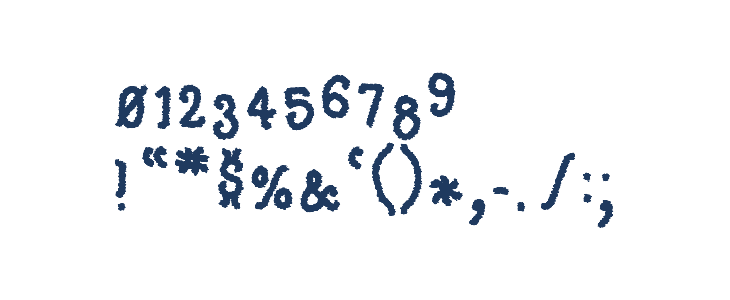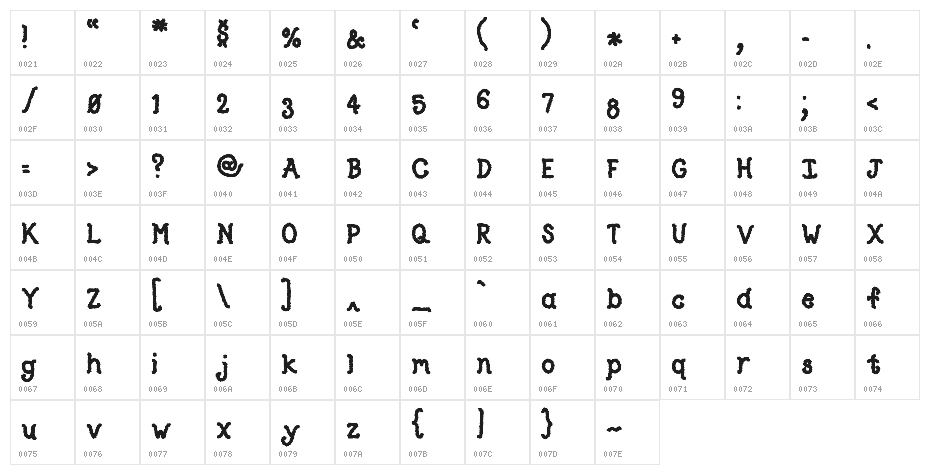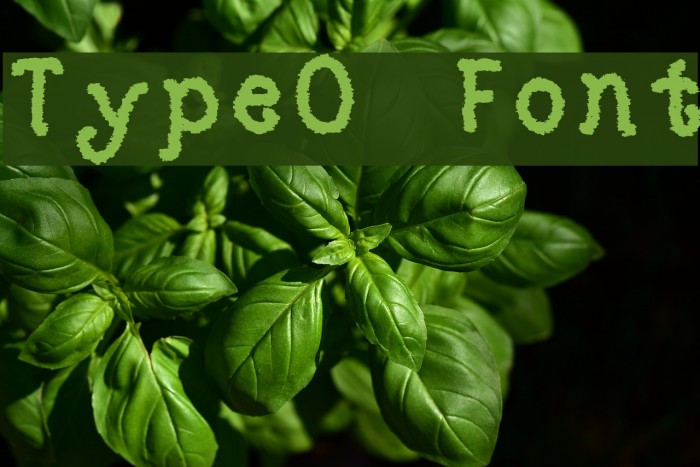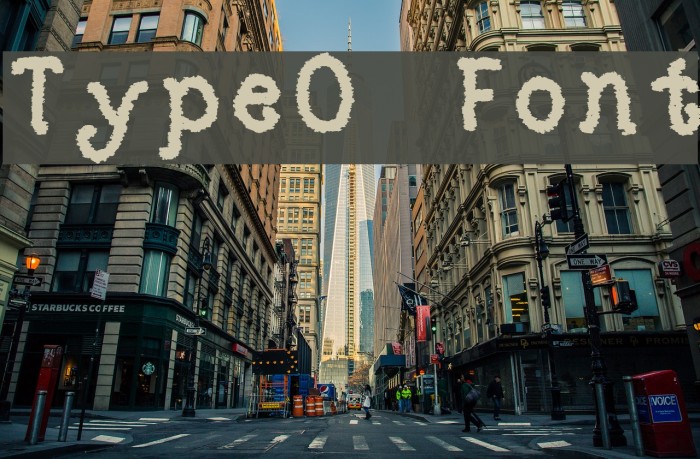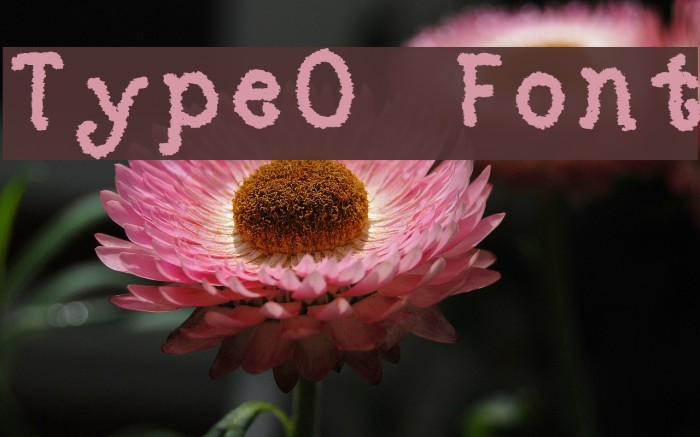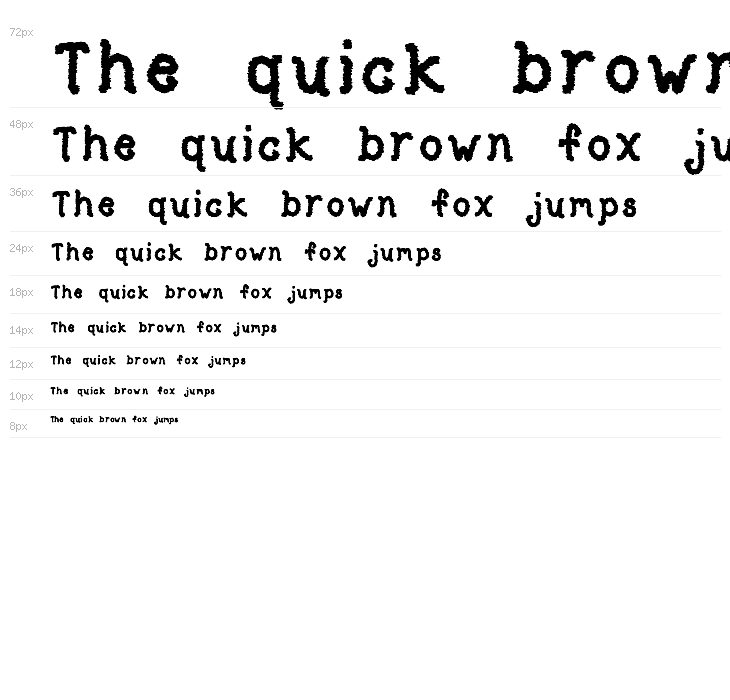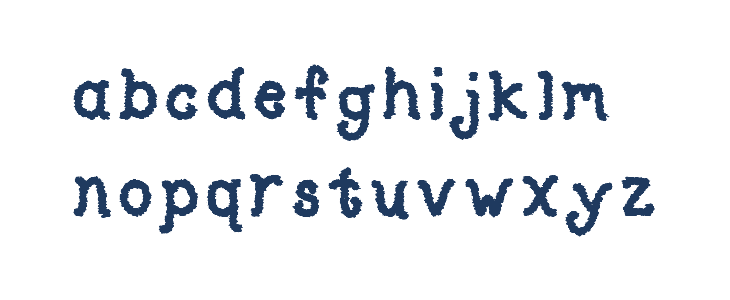
TypeO Font
TypeO Description
This font features a playful and slightly irregular style, characterized by its hand-drawn appearance. The letters have a rough, textured edge, giving them a unique, organic feel. The uppercase and lowercase letters maintain a consistent style, with rounded forms and a whimsical touch. Numbers and special characters follow the same design, ensuring a cohesive look across all elements. This font's distinctive personality makes it stand out, suitable for projects that require a touch of creativity and informality.
| Use Case | Headlines, Logos, Artistic projects |
| Proposed Projects | Ideal for children's books, creative posters, casual branding, and artistic invitations. |